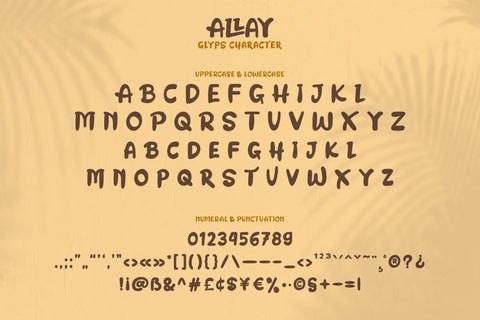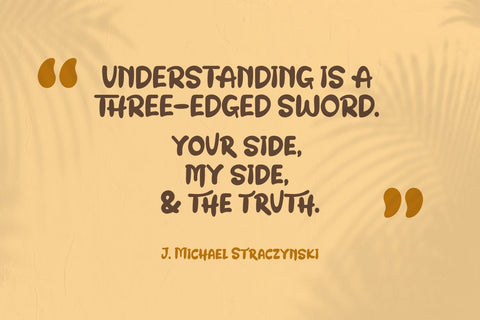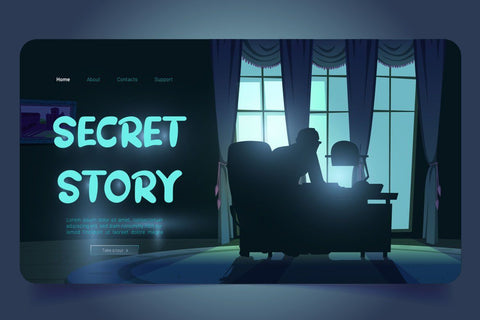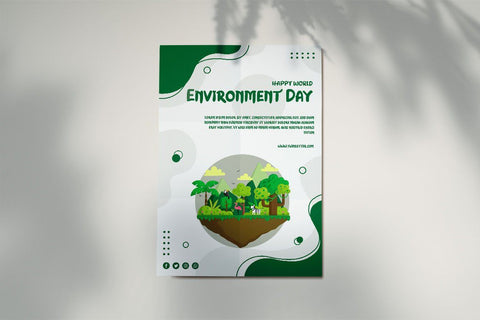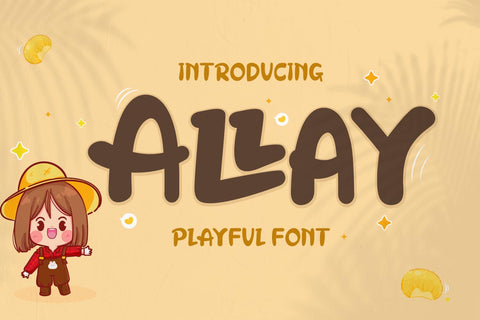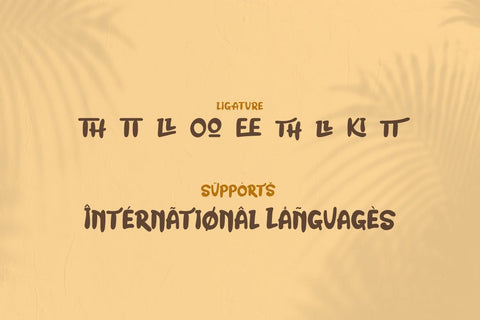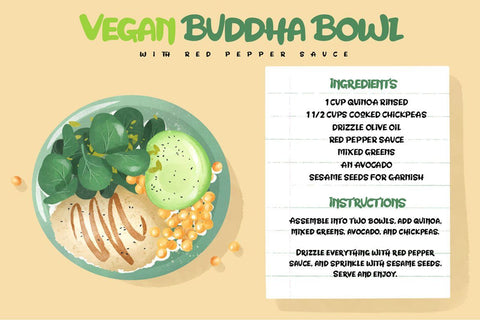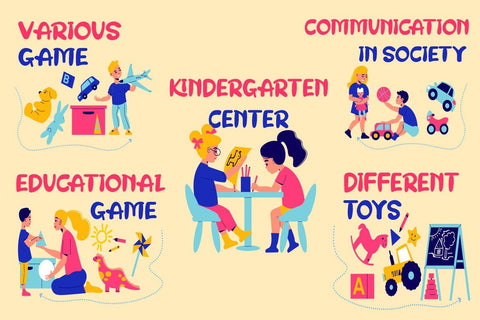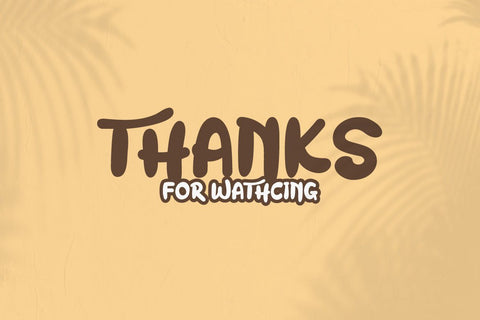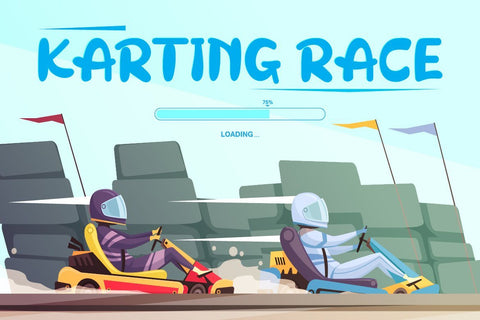
Allay - Display Playful Font
Allay is a display font with a distinctive and appealing shape that may be used in a wide range of creative design projects.
Each letter shape is created using a variety of combinations that provide a one-of-a-kind, innovative, entertaining, and unmistakably aesthetic impression when used.
This typeface also comes with typical ligatures and can be used in other languages.
This font is perfect for games, sporting events, branding, banners, posters, movie titles, book titles, quotes, logotypes, and more.